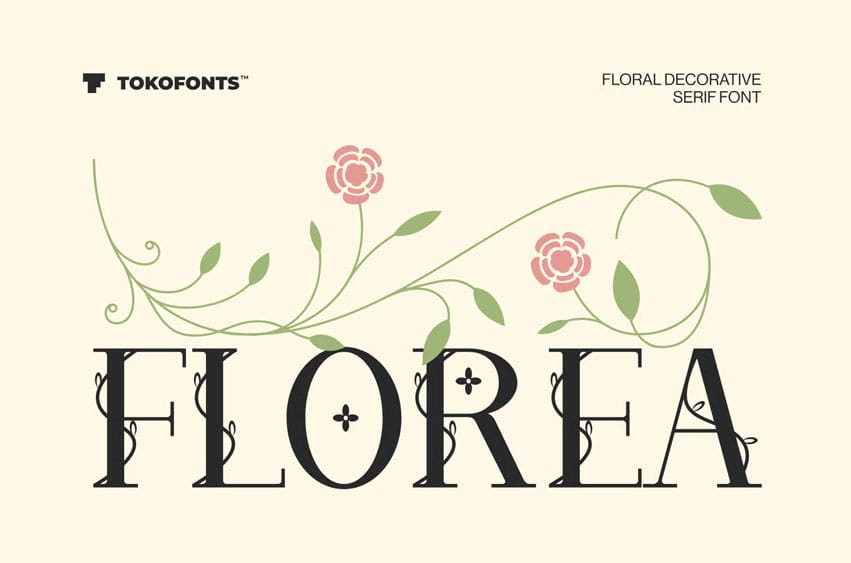
Florea Font is a modern and elegant decorative serif display typeface designed to bring a refined and artistic touch to logo and branding projects. Featuring delicate floral-inspired details combined with a clean and minimal structure, this font blends expressive beauty with timeless influence from helvetica, montserrat, and futura. It creates a graceful visual identity that is perfect for fashion brands, corporate designs, and sophisticated creative concepts.
With its unique character and versatile style, Florea font adapts seamlessly across various applications, from stylish display headlines to more playful kids concepts. The balance between decorative elements and clean readability ensures it stands out while remaining functional, making it ideal for logos, branding systems, and modern visual compositions. Florea stands among contemporary fonts that combine elegance, creativity, and minimal design for a memorable and distinctive look.